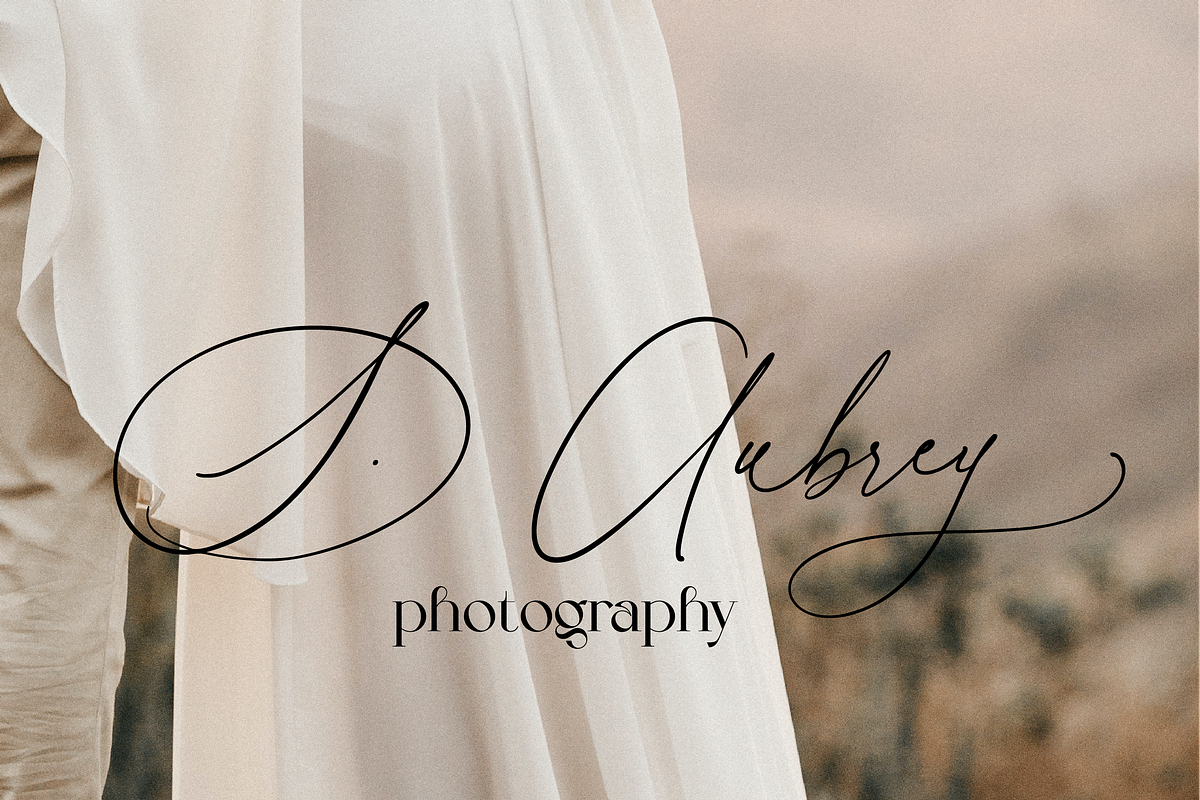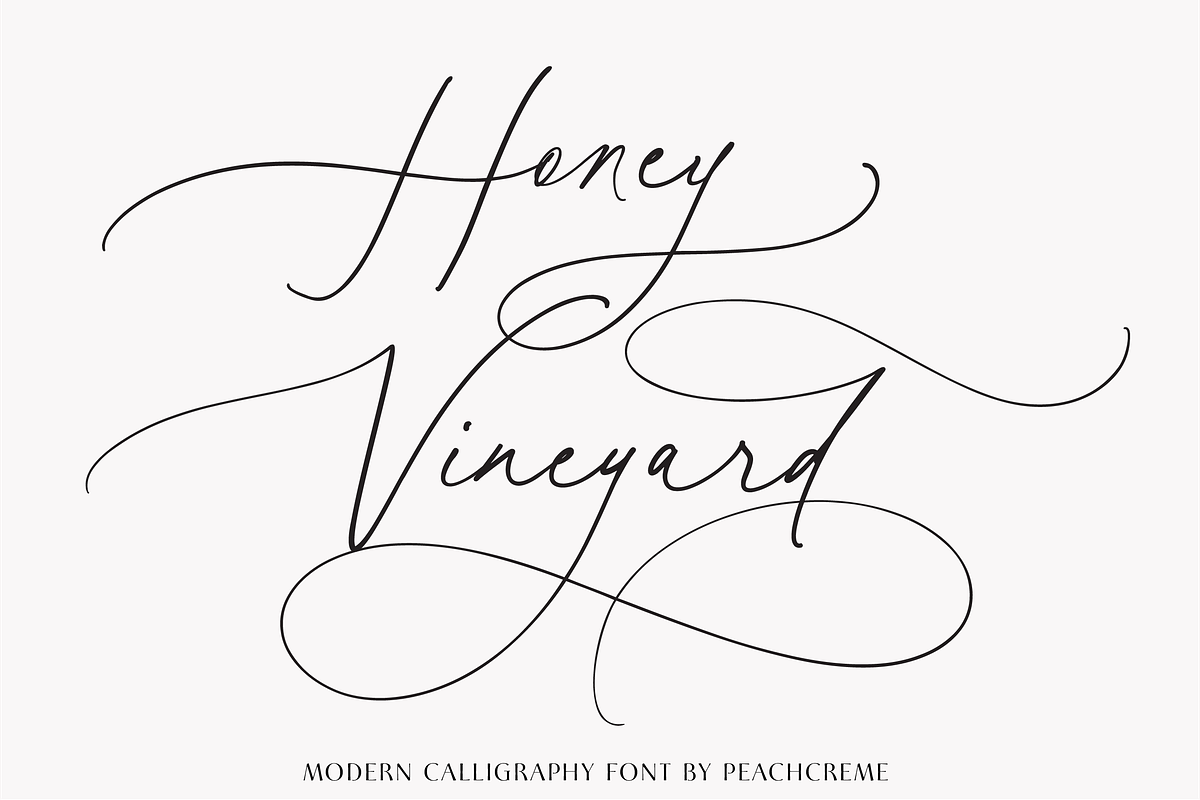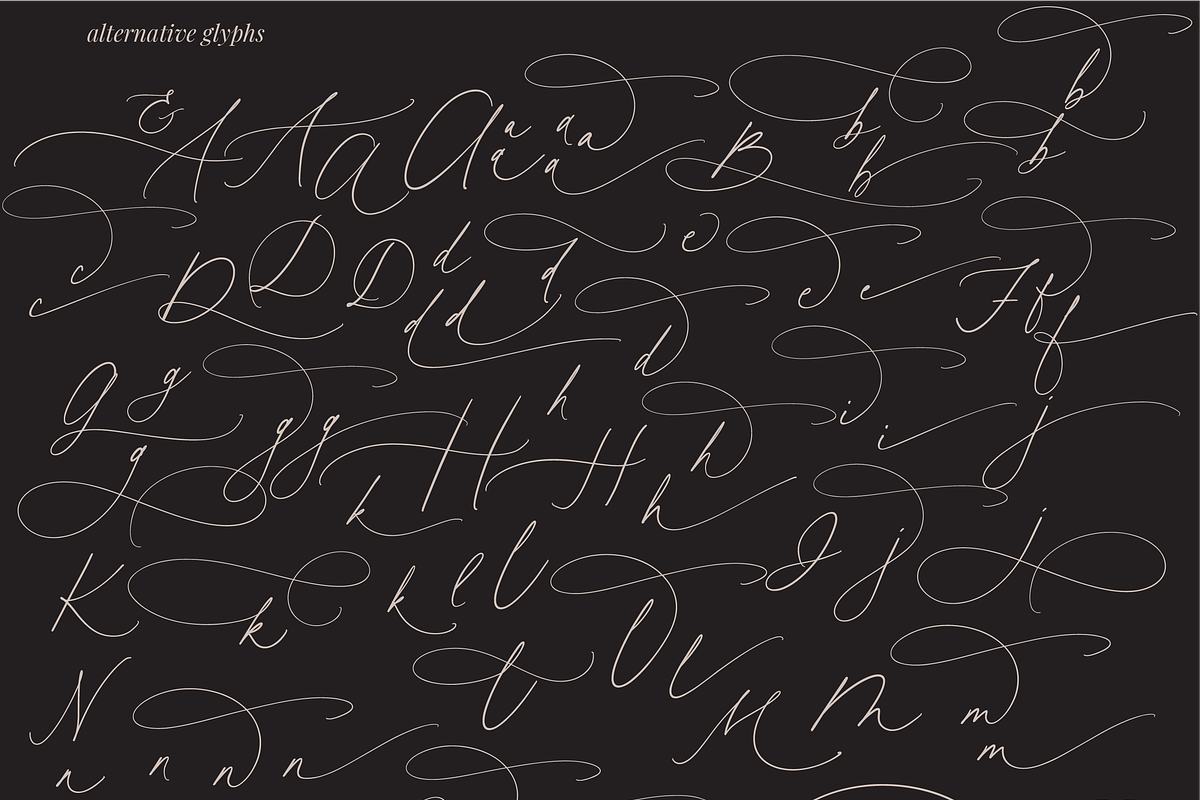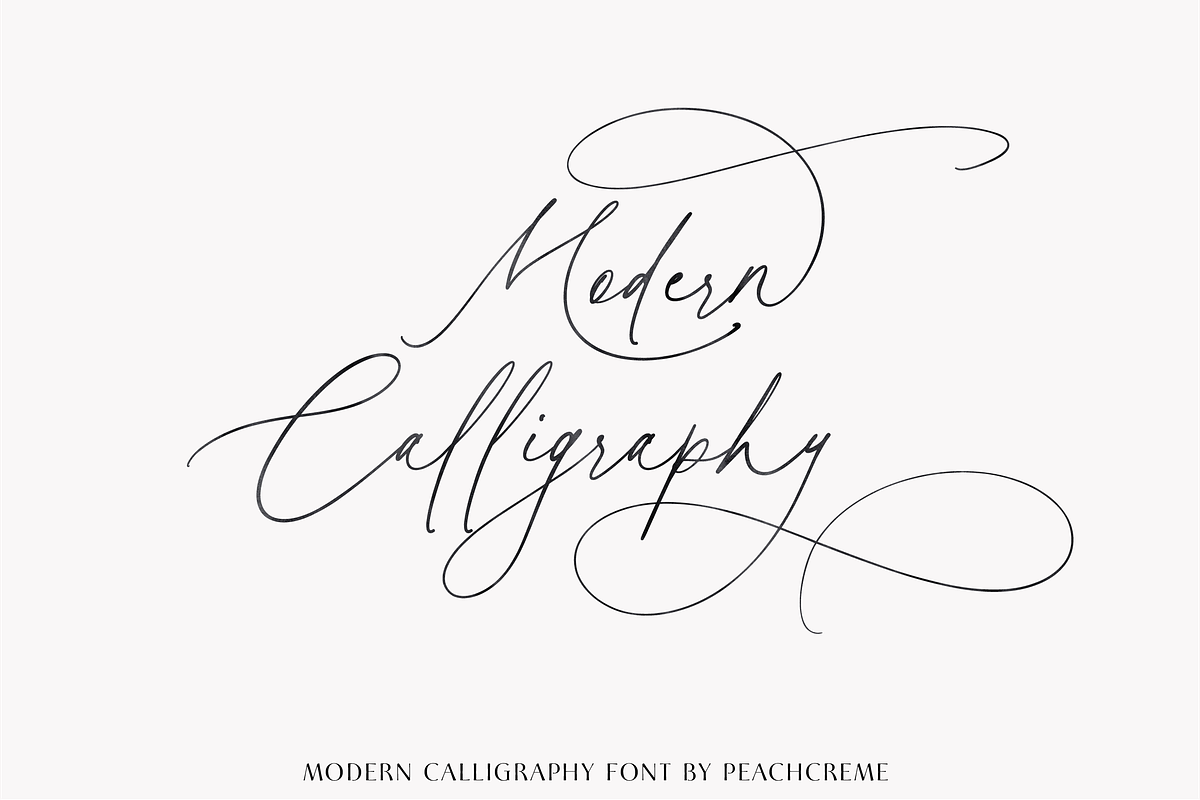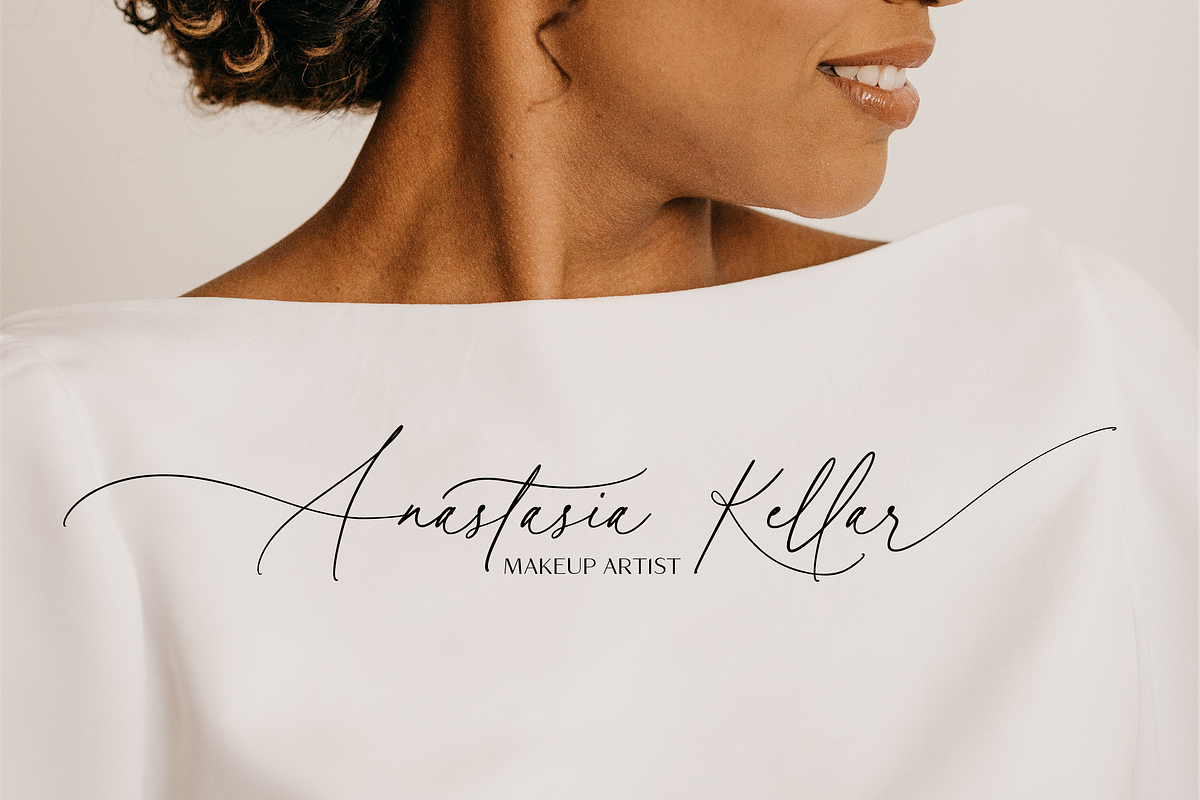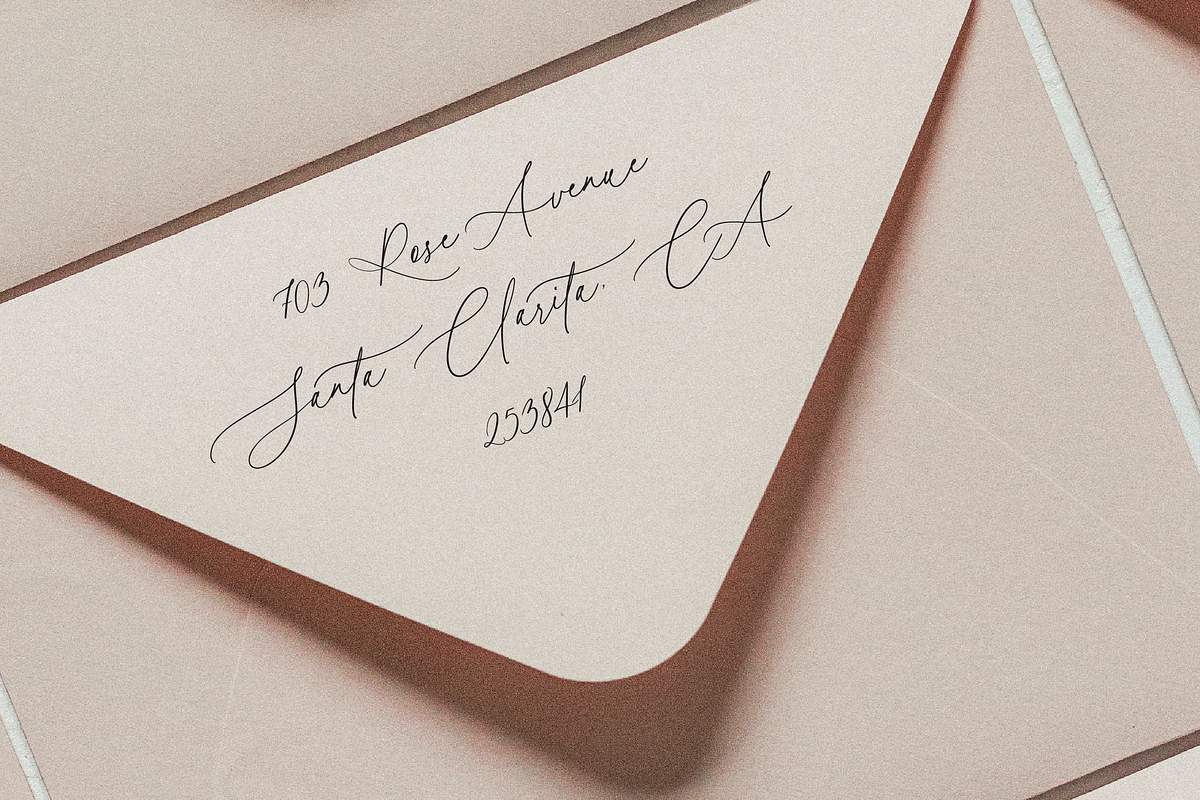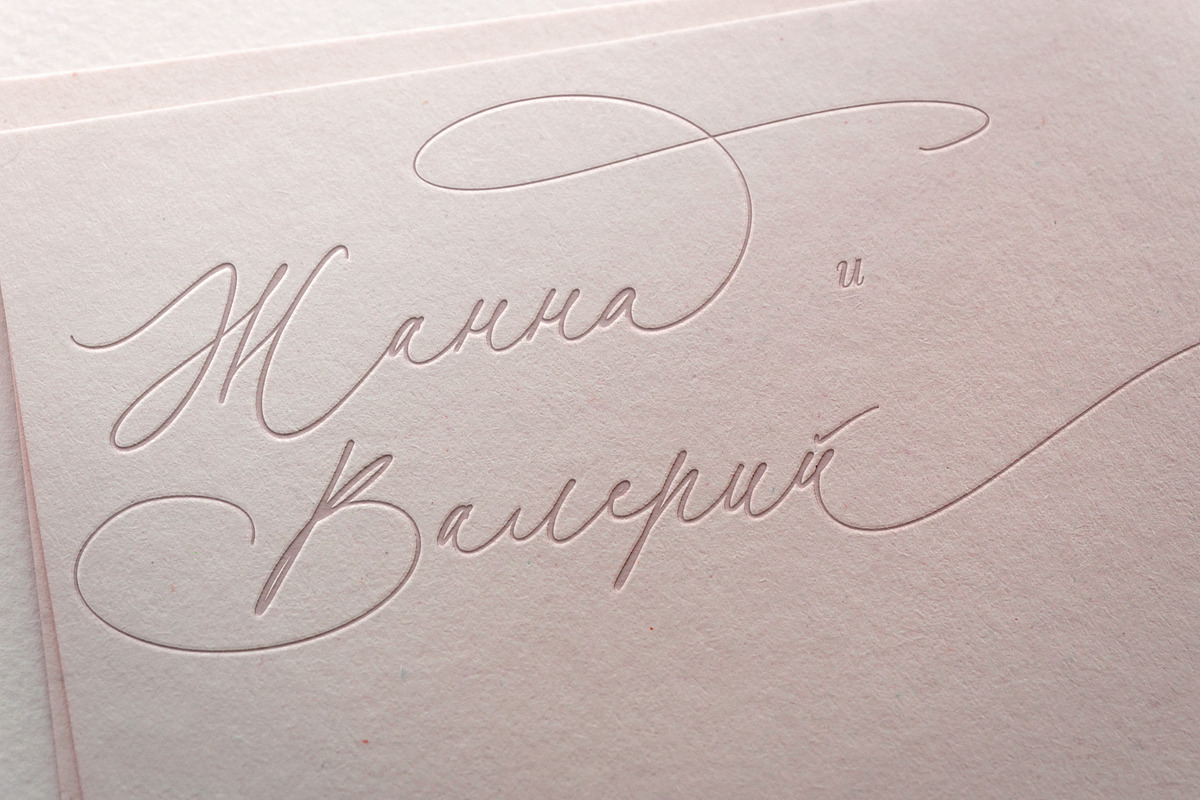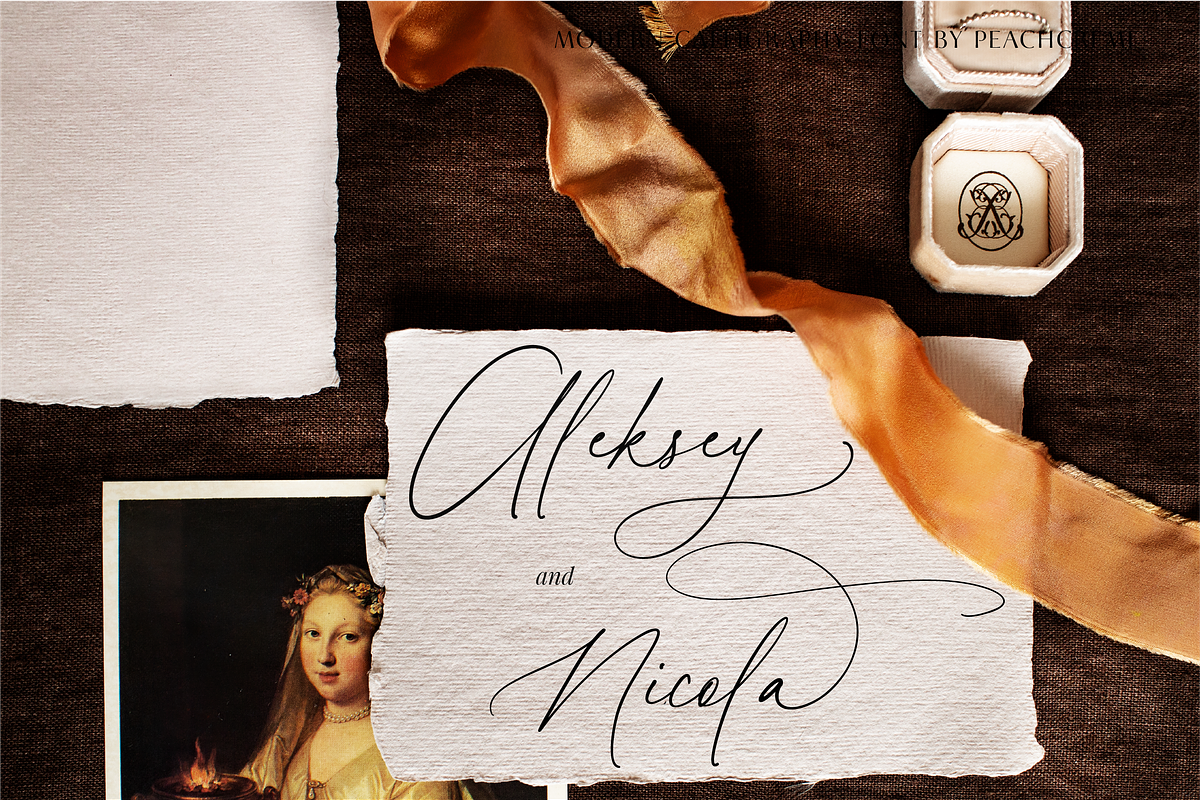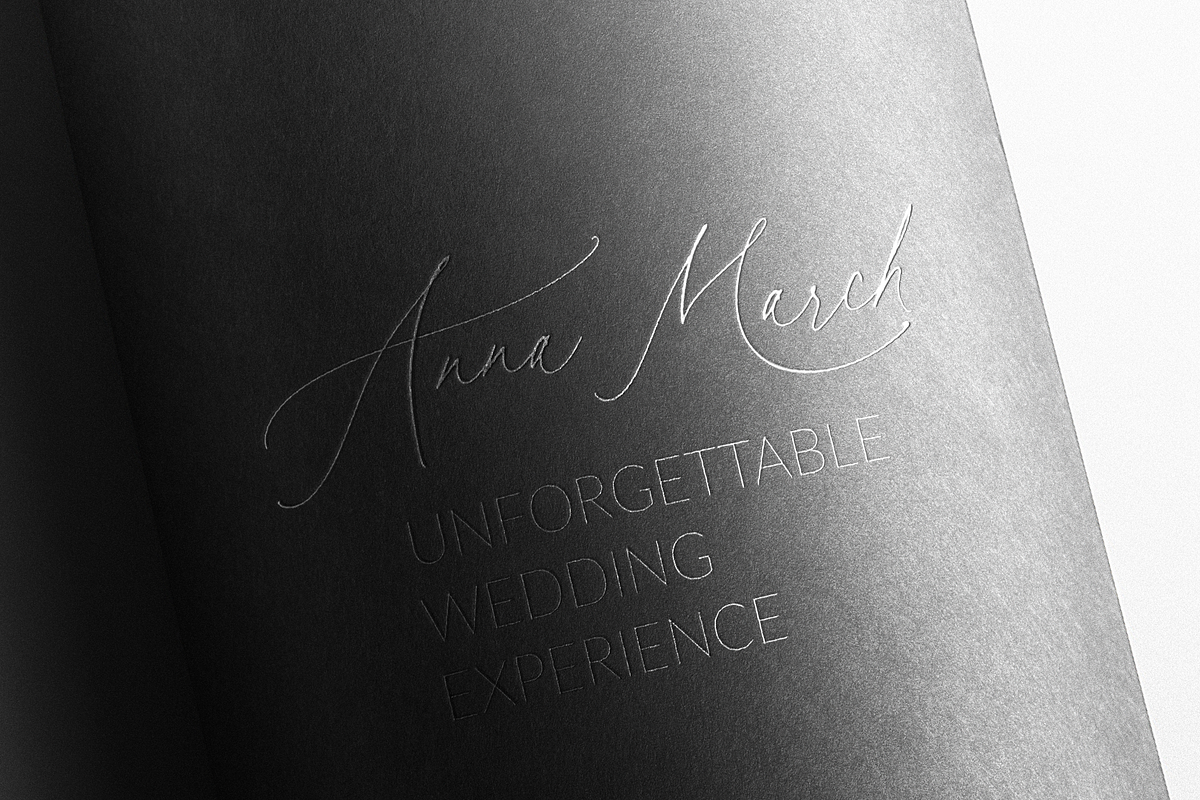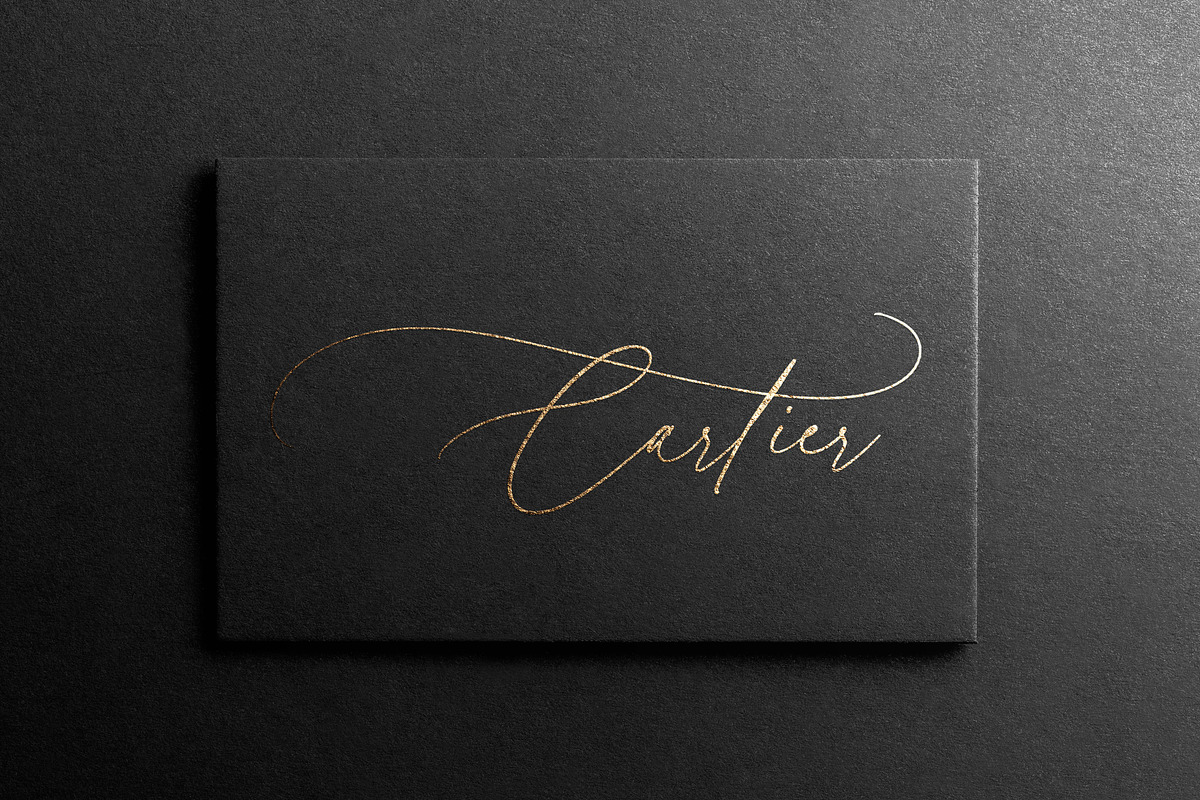
Honey Vineyard // Modern Calligraphy
Hey guys! Meet our new font "Honey Vineyard"! It's time to pick up on the wedding trend of script-style fonts, and Honey Vineyard's sophisticated and stylish design is perfect for announcing your elegant wedding. A unique wedding font featuring flourishes of creativity and a graceful design won't leave anyone indifferent. This font includes stunning swashes and ligatures that will make your design even more attractive! Some commonly used letters have multiple swashes, while some rarely used letters have none at all. We also would like to note that when creating this font, a purely calligraphic approach was used. This means that all the letters are not the same: some letters are much thicker and some are thinner, as is the case in real calligraphy! The font also includes the Cyrillic version.